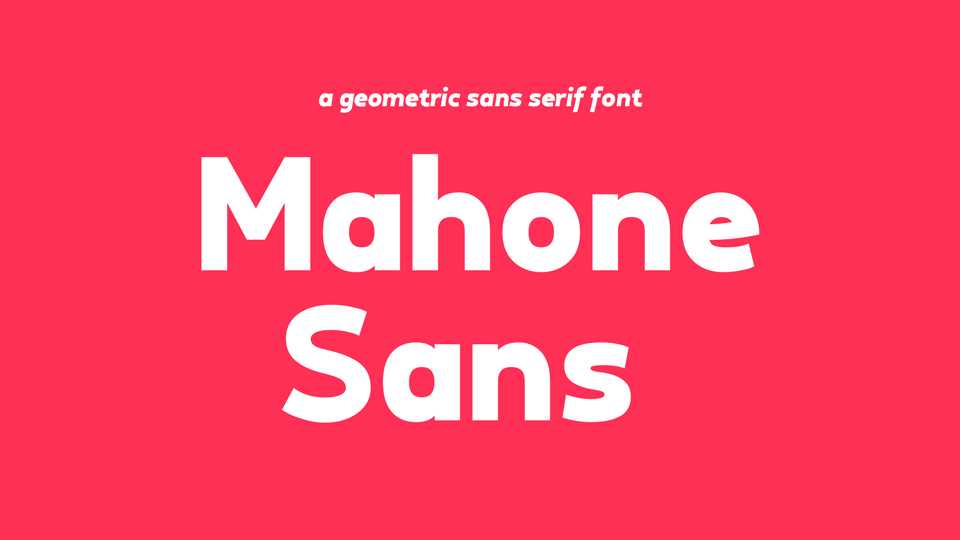
Download Mahone Sans font, a geometric sans serif typeface that only has one style and corresponding Italic. Also, there are about 1900 glyphs in this font, Mahone Sans supports 137 languages.